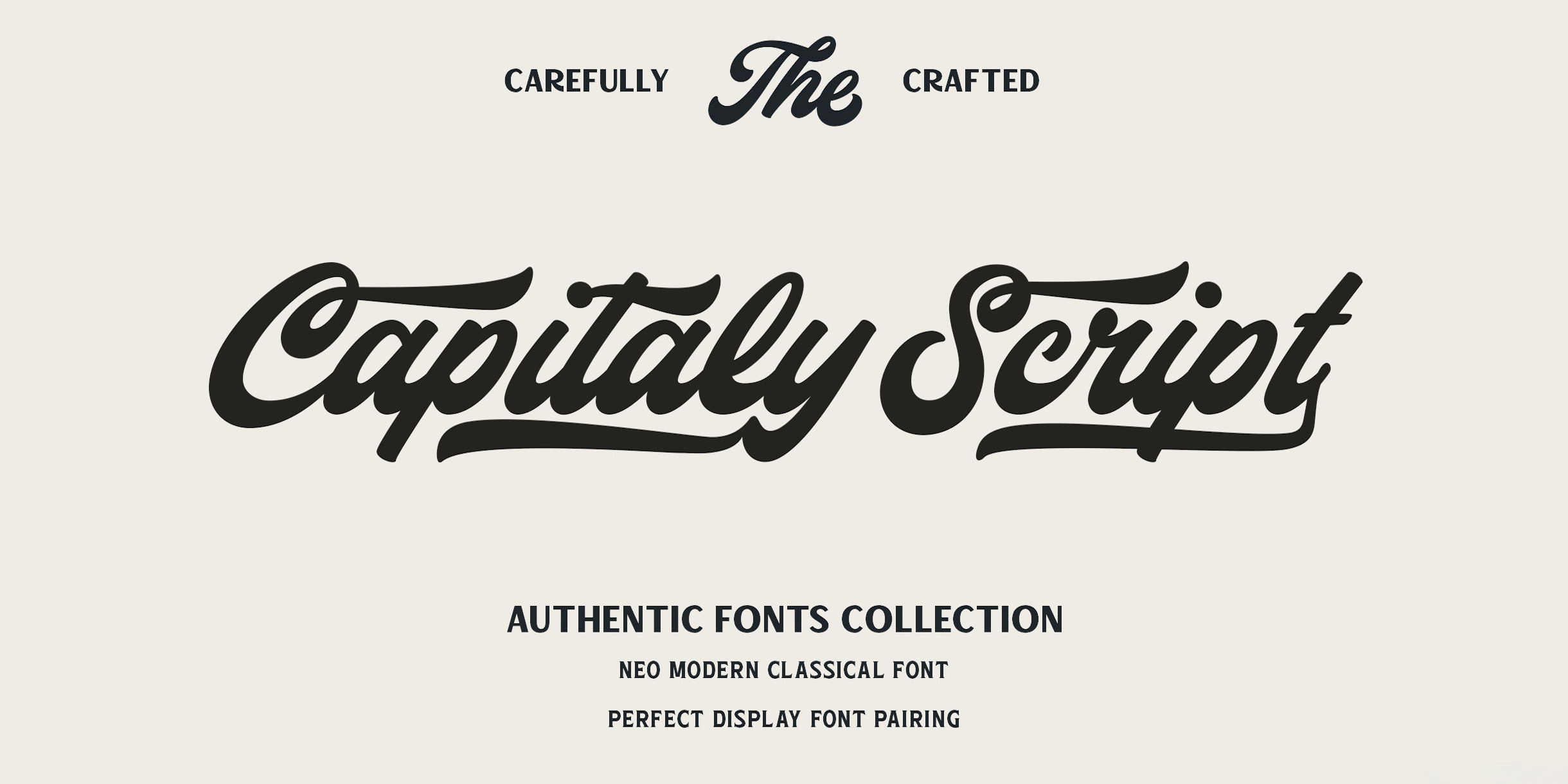
Capitaly Script Font is perfect for luxury financial services, prestigious investment firms, upscale banking institutions, high-end business consulting, executive corporate branding, exclusive membership clubs, sophisticated financial planning, premium wealth management, elite capital ventures, and distinguished business communications.
Capitaly Script Font is exciting because it commands financial authority and executive sophistication through refined script letterforms that capture the elegant power of capital investment and the distinguished prestige of financial excellence, making it perfect for brands celebrating wealth, success, and sophisticated business achievement.
The Capitaly Script Font family includes regular script with executive flourishes, financial-inspired ornaments, and prestigious decorative elements, providing designers with affluent tools for creating typography that flows with authentic financial authority and sophisticated business elegance.
When your project needs financial sophistication and executive prestige, Capitaly Script Font Free Download delivers the perfect typographic investment for luxury business communications. This distinguished script typeface combines financial industry tradition with contemporary functionality, ensuring your brands resonate with affluent audiences seeking premium financial services and executive-level sophistication. The refined letterforms and capital-inspired styling make this font an essential choice for financial institutions, wealth management firms, and any application where financial authority, executive prestige, and sophisticated business success are crucial for establishing credibility and connecting with high-net-worth clients who demand the finest expressions of financial expertise and the distinguished presentation that defines truly exceptional wealth management and capital investment services.